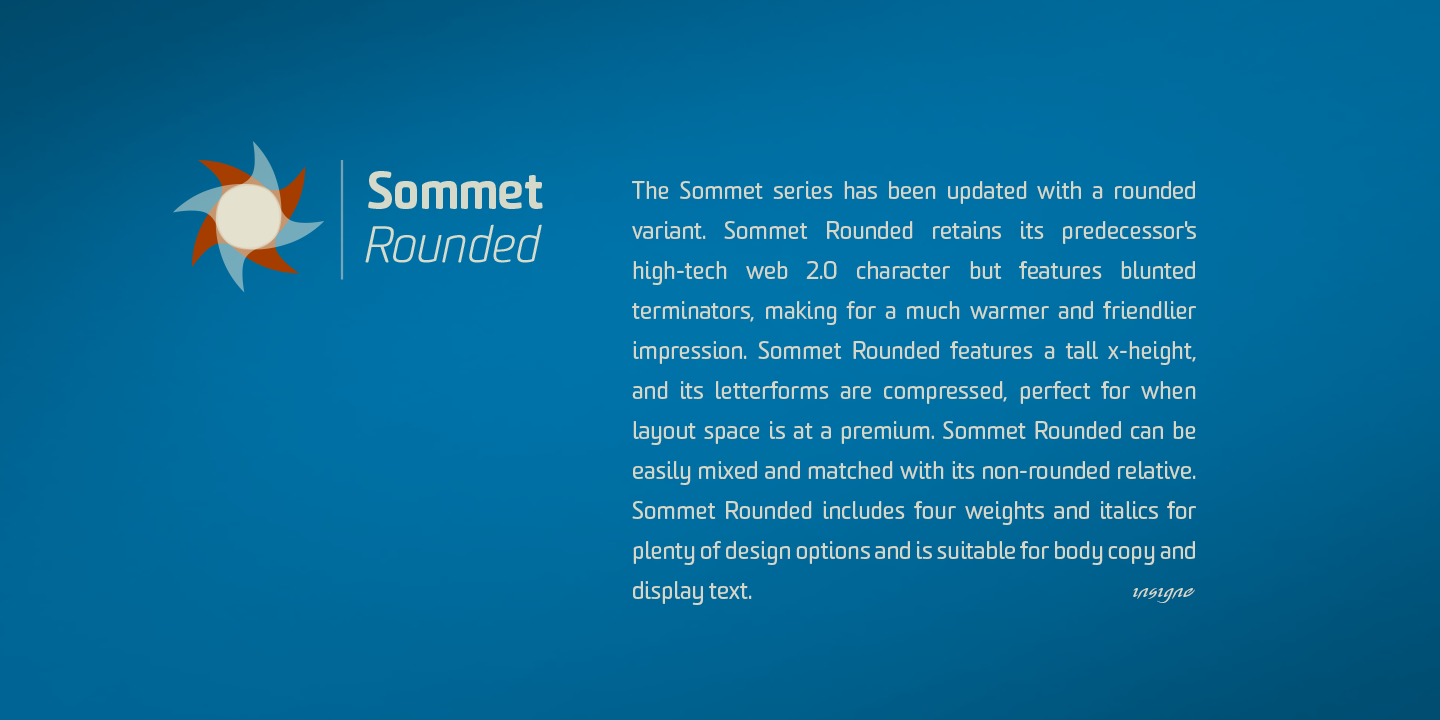
Sommet Rounded Font is perfect for friendly branding, children's products, educational materials, mobile app interfaces, healthcare communications, toy packaging, playful logos, family-oriented businesses, social media graphics, and any projects that need approachable, warm typography with excellent readability.
What makes Sommet Rounded Font exciting is its perfect balance of professionalism and approachability through carefully crafted rounded terminals that soften the overall appearance without compromising clarity. This welcoming typeface features gentle curves and friendly proportions that create an inviting atmosphere while maintaining the structural integrity needed for serious communication. The font's warm character makes it ideal for brands wanting to appear trustworthy, accessible, and human-centered.
Sommet Rounded Font family includes comprehensive weight options ranging from thin to black, featuring light, regular, medium, semibold, bold, and extra bold variants. The font family also offers italic versions for each weight, along with condensed and extended options that provide maximum versatility for different design requirements. Special features include multilingual support and optimized spacing for enhanced readability.
Create connections with Sommet Rounded Font Free Download and bring warmth to your communication through typography that bridges professionalism with humanity. This versatile typeface performs exceptionally across digital and print media, ensuring your message reaches audiences with clarity and friendliness. Download Sommet Rounded Font today and elevate your brand's approachability with typography that combines reliability with genuine warmth, creating lasting positive impressions with every interaction.